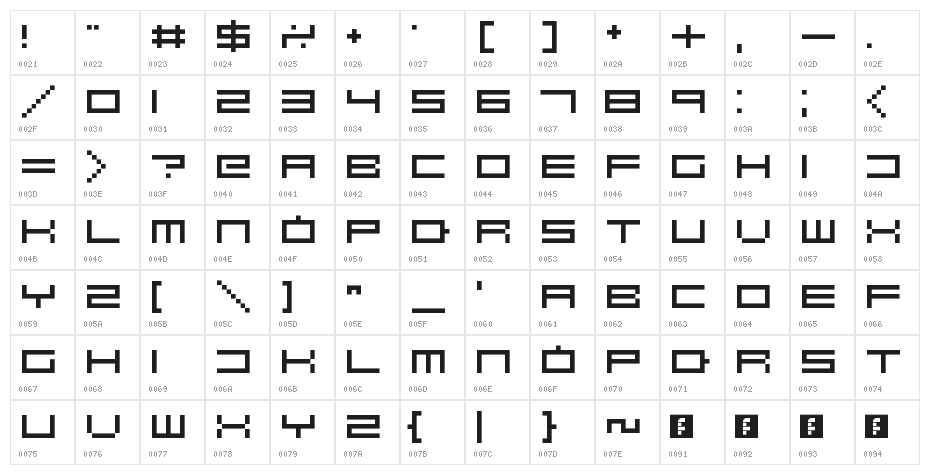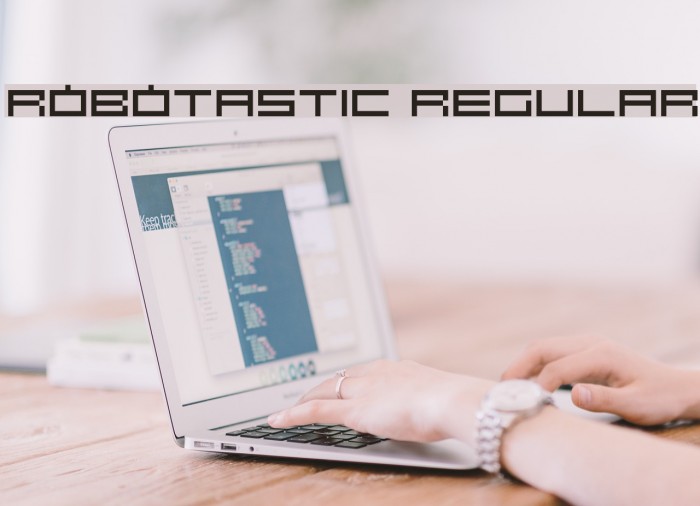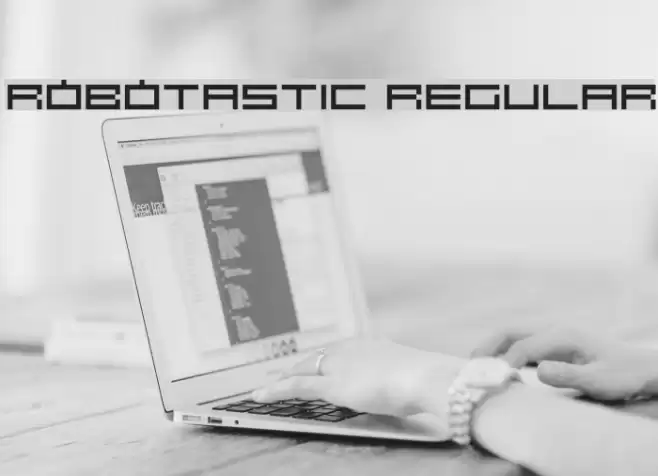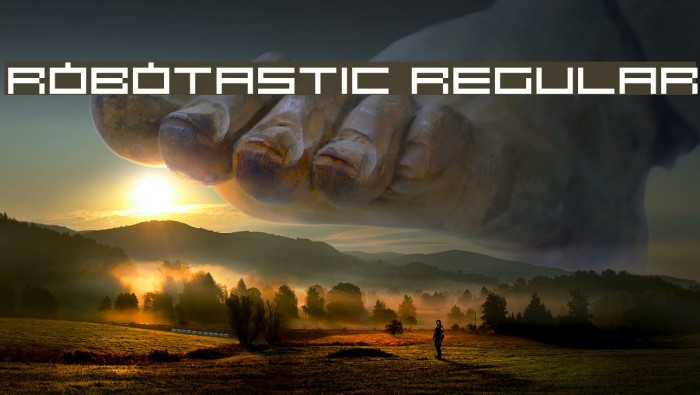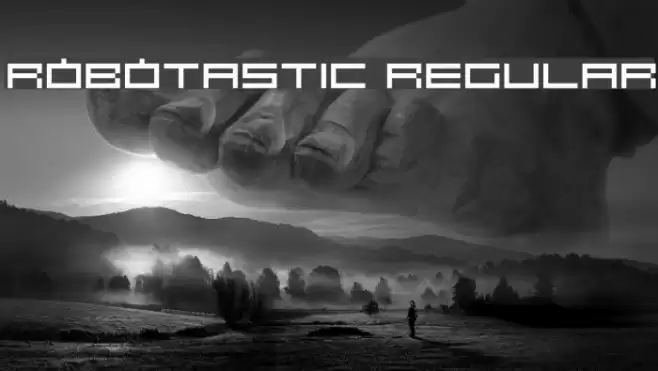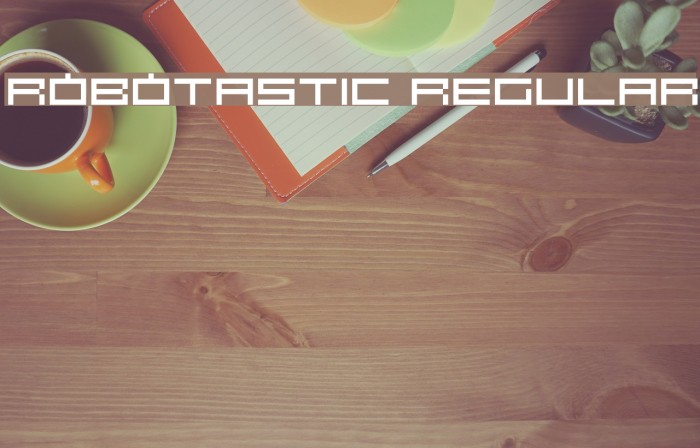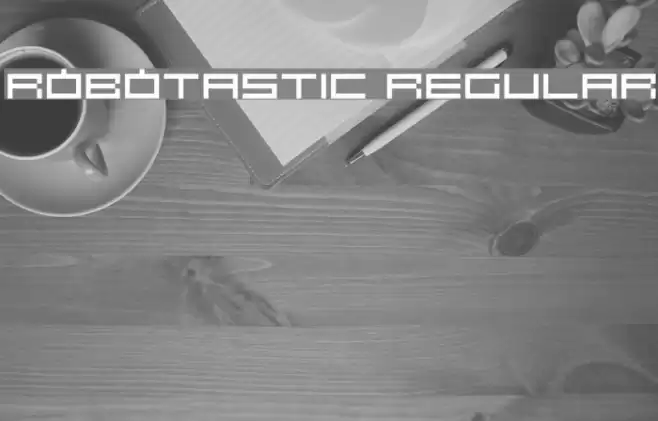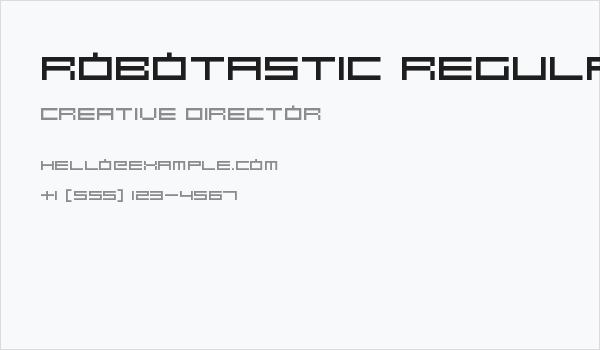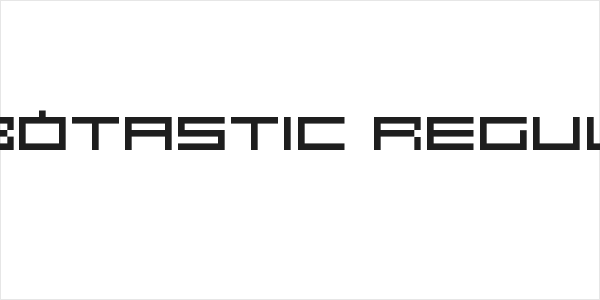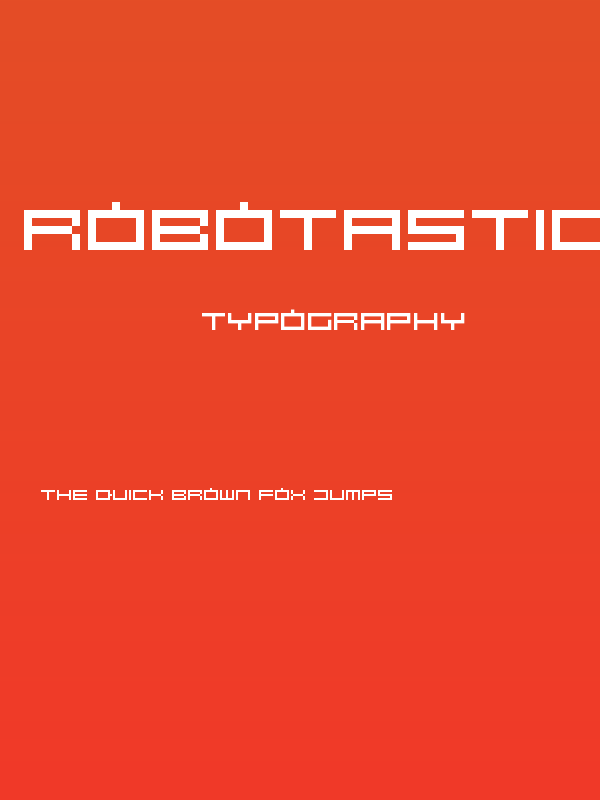
Robotastic Regular Font
| उपयोग का मामला | Headlines, Logos |
| सुझाए गए प्रोजेक्ट | Ideal for tech-related branding, video game interfaces, digital art projects, and futuristic-themed designs. |